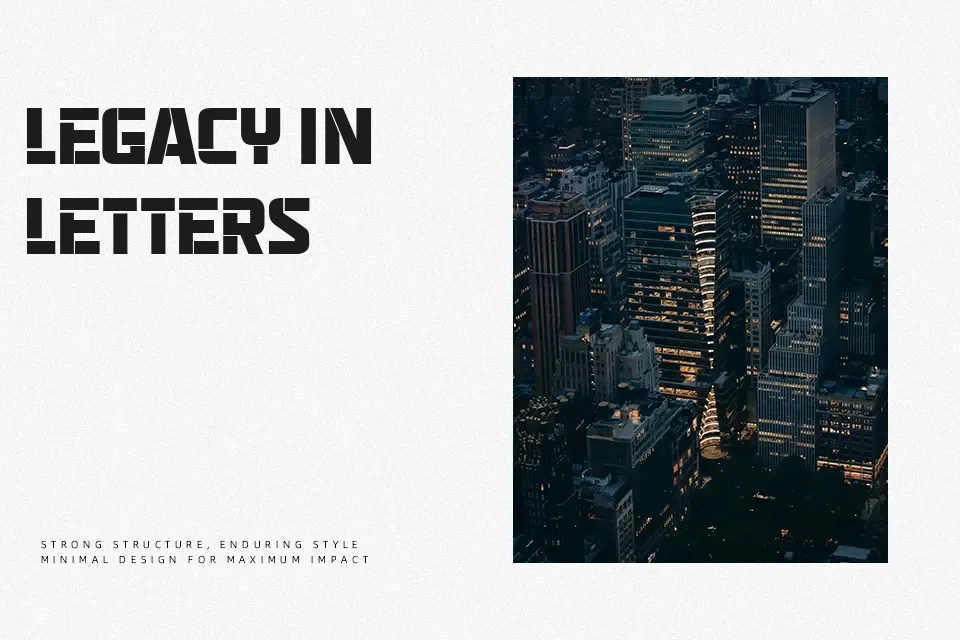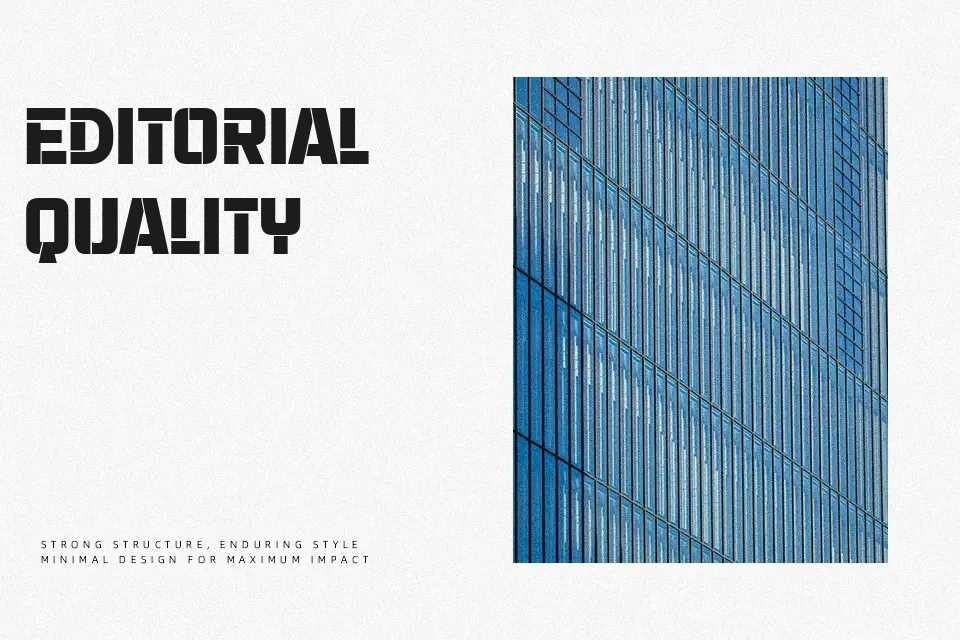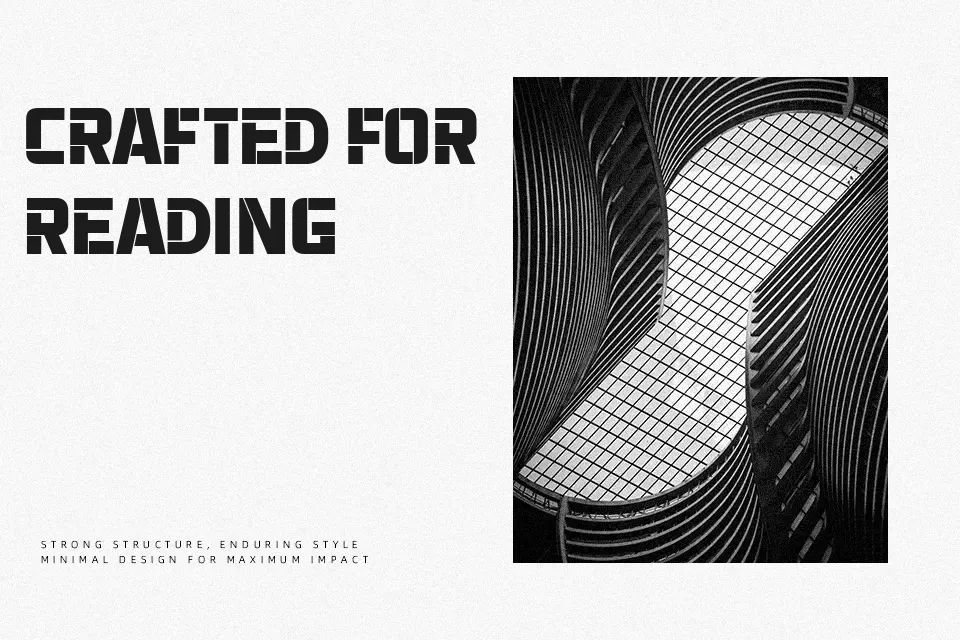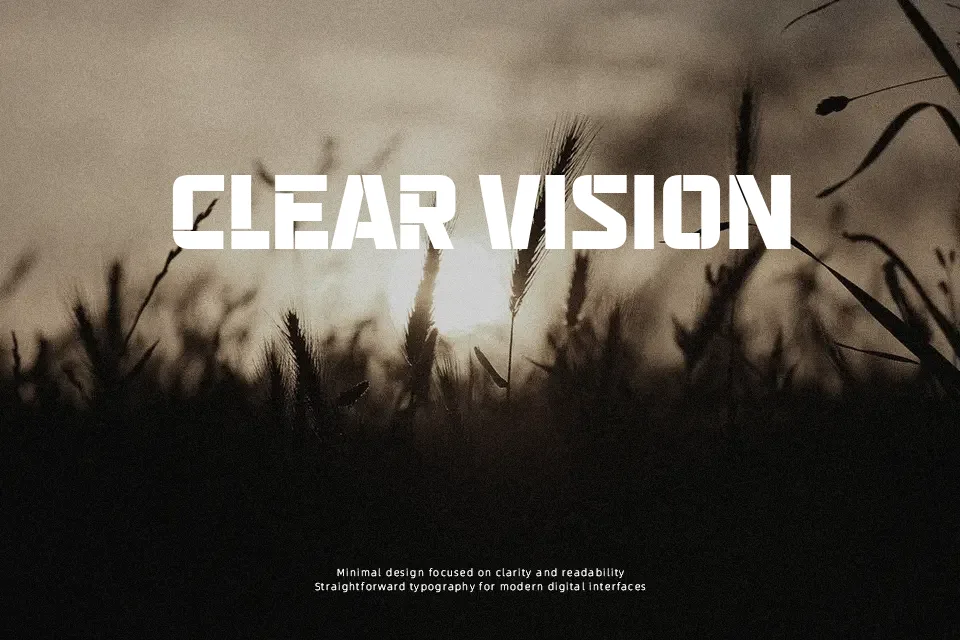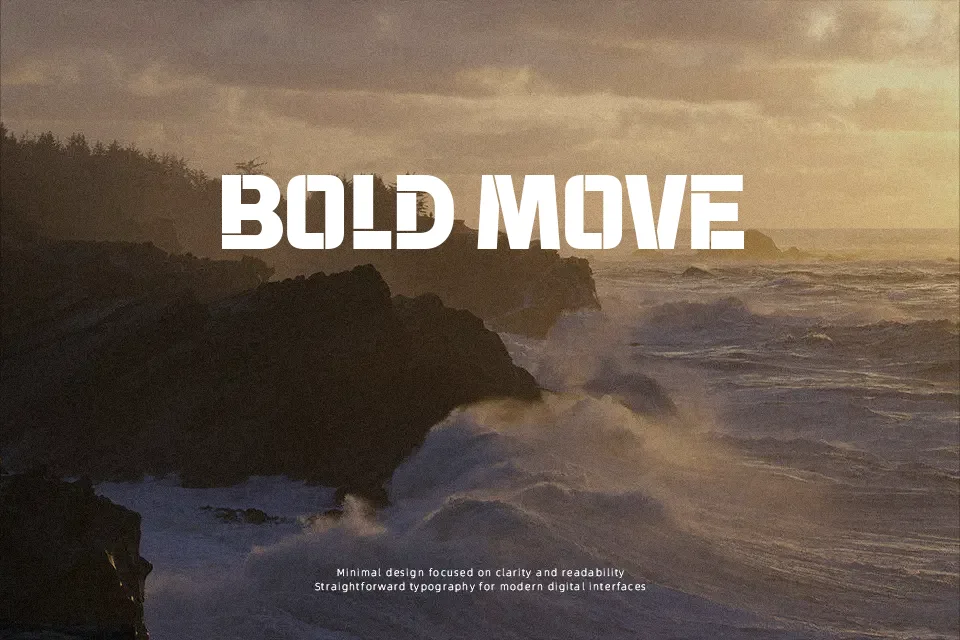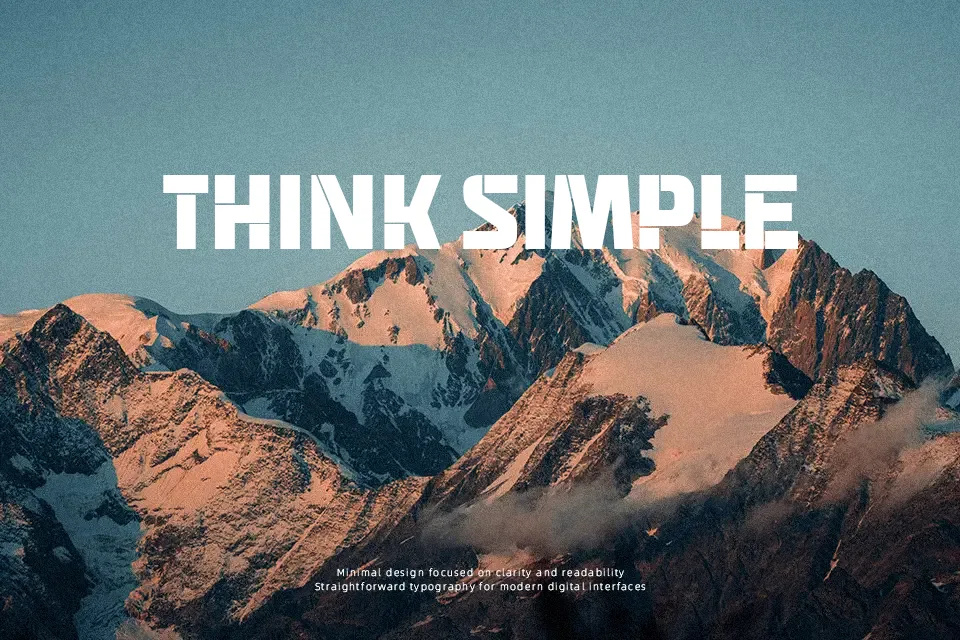
Redemtion Font
Redemtion Font presents a robust stencil design characterized by thick, solid strokes and intentional structural breaks. The letterforms display dense proportions and tight spacing, creating a utilitarian and commanding presence in large display applications. Its rigid geometry and industrial breaks help maintain visual interest in assertive poster headlines, heavy machinery branding, and rugged apparel graphics. However, the heavy weight and fragmented construction significantly reduce reading comfort in smaller formats. Dense forms become less effective in extended paragraphs, where the distinct stencil gaps interrupt the natural reading flow. This typeface performs best when displayed at larger sizes for maximum structural clarity.
Best For: military-inspired branding, industrial product packaging, bold poster headlines, rugged apparel graphics
Not Ideal For: long paragraph text, small interface labels, dense editorial layouts
Perfect for branding, headline, and packaging, with a bold and display style.